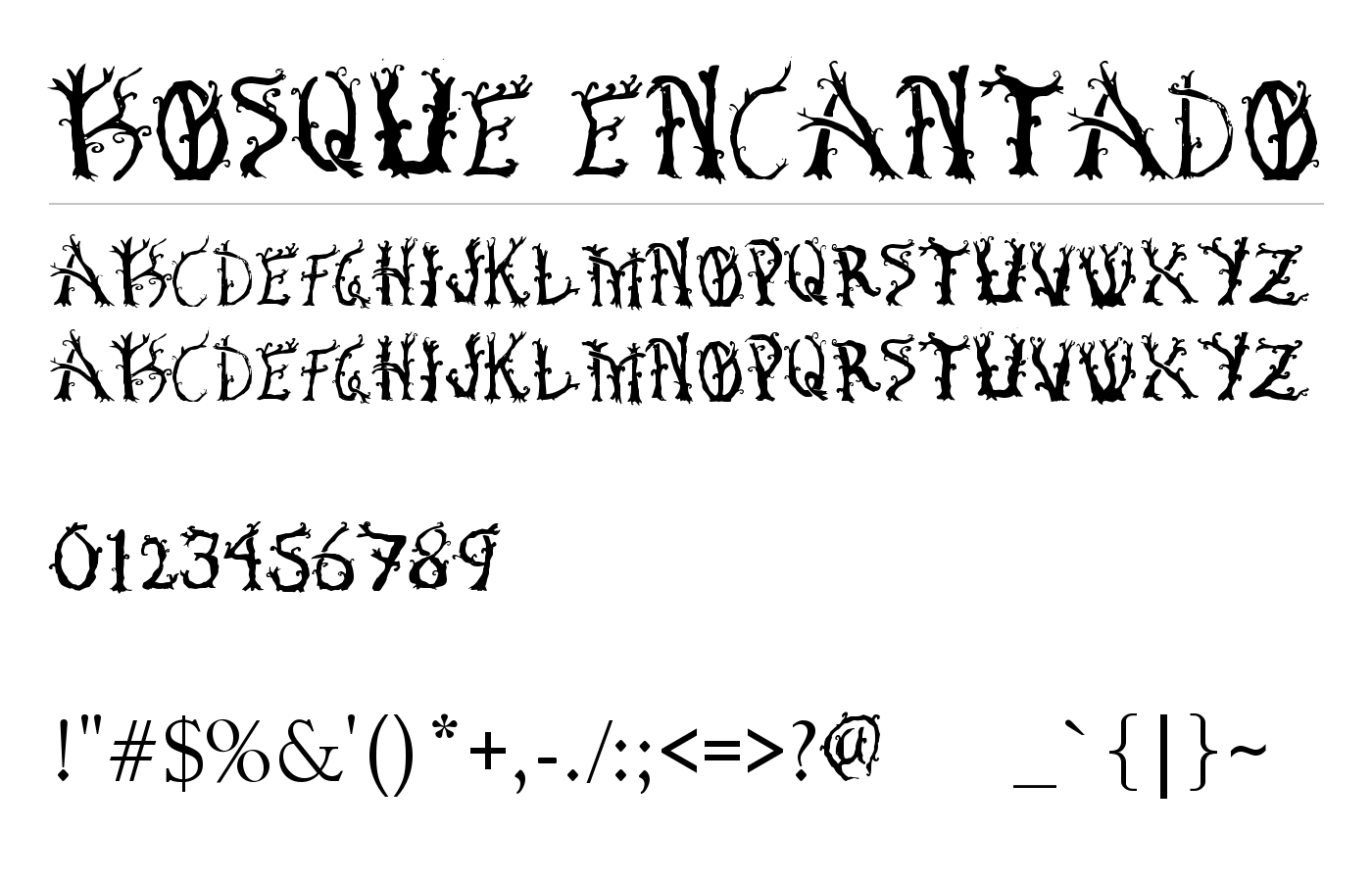
Bosque Encantado is a decorative serif font with a whimsical, nature-inspired design, featuring letterforms that resemble twisting branches and vines. Its detailed, organic strokes create a mysterious and enchanting atmosphere, making it perfect for fantasy-themed projects, Halloween designs, or artistic branding that wants to evoke a magical forest vibe. This font works best in headlines, logos, or themed posters where its unique style can truly stand out and capture attention.
Bosque Encantado Font
About Bosque Encantado Font